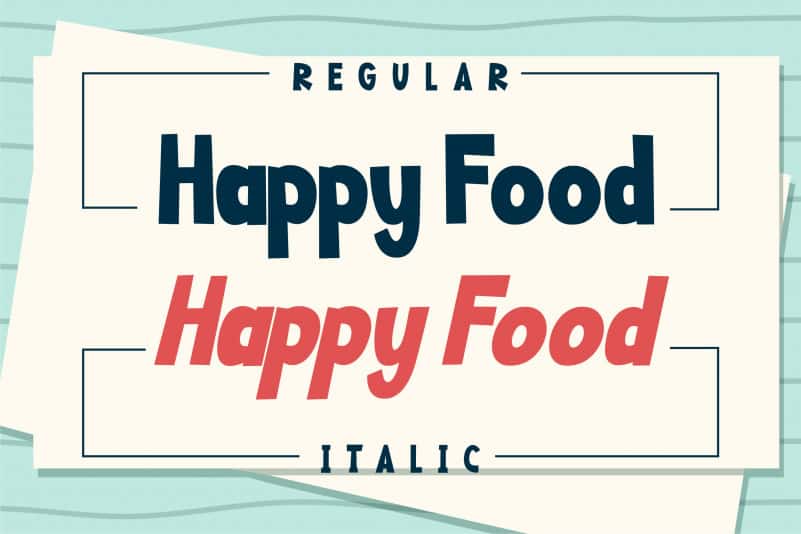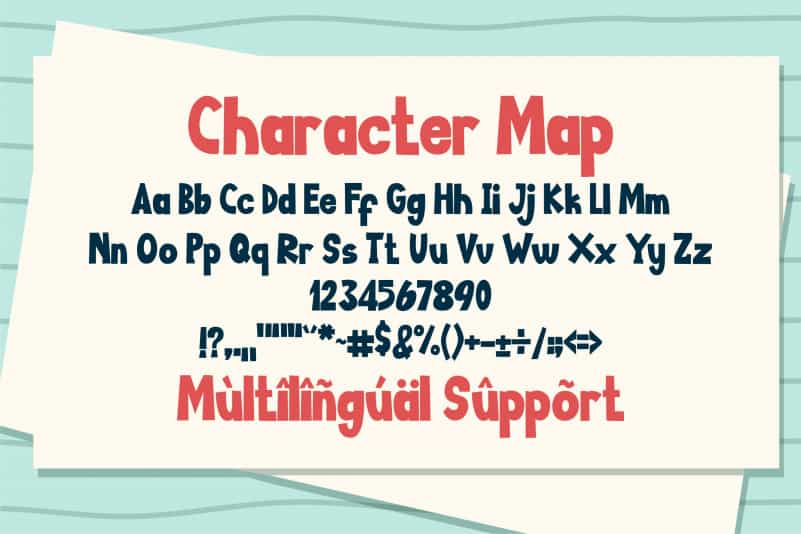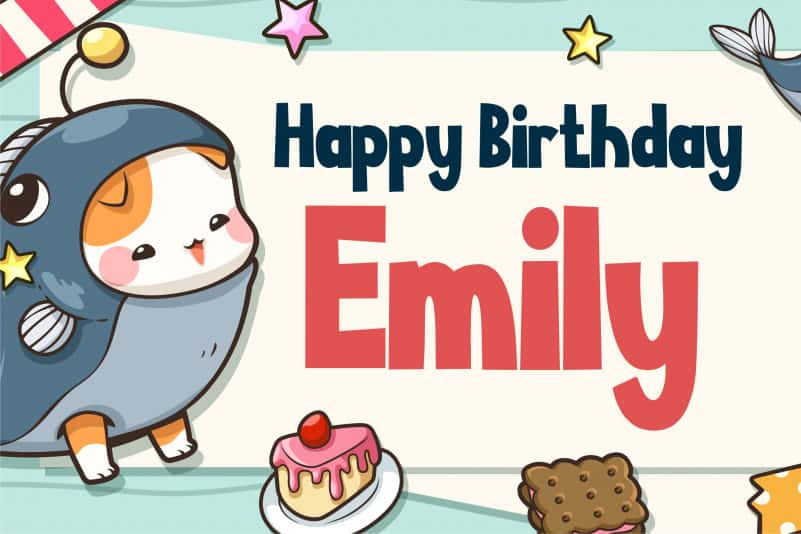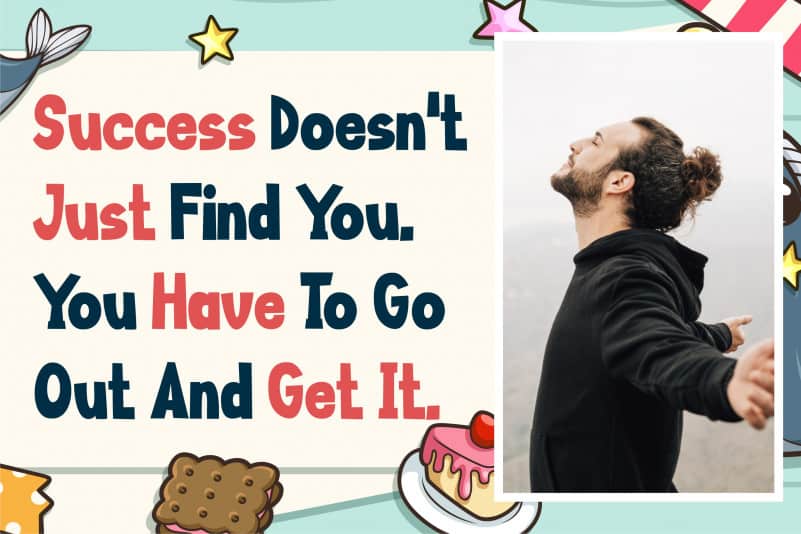
Happy Food Display Font is a bold and cute display font. Its casual style makes it incredibly fitting to a wide range of designs, so add it confidently and you will be amazed by the outcome.